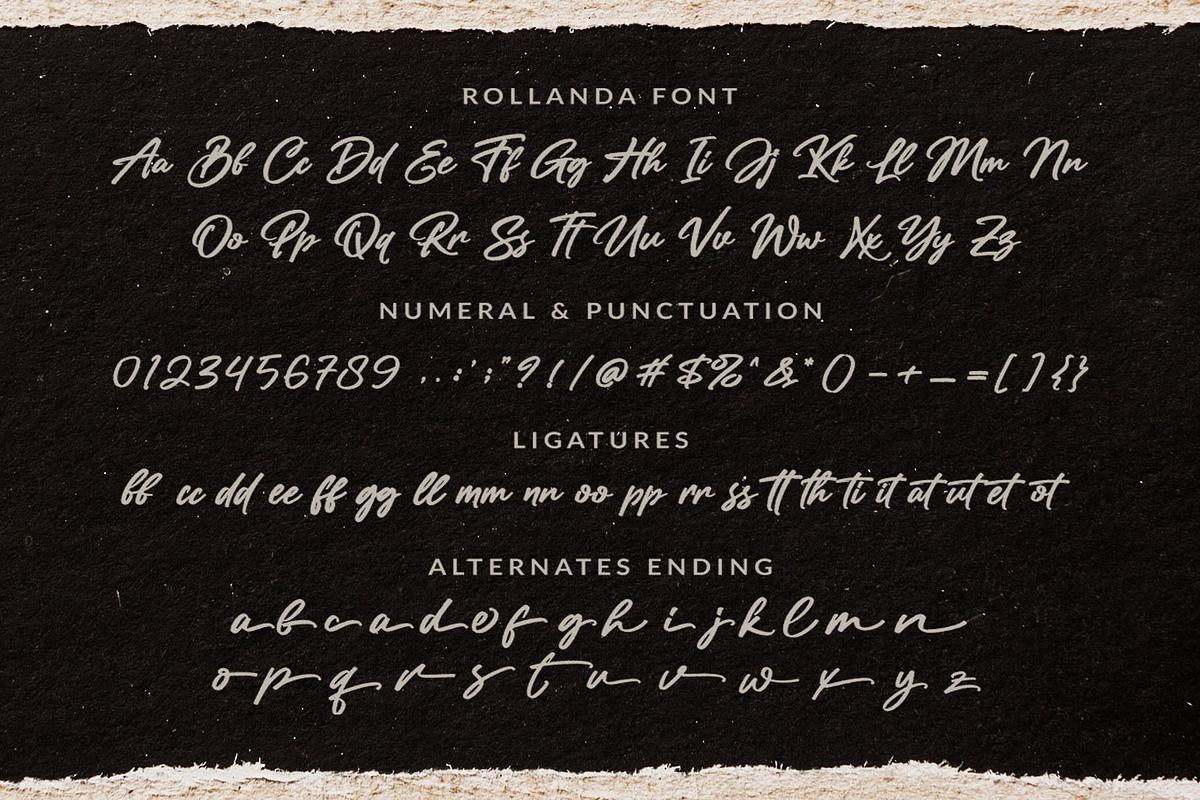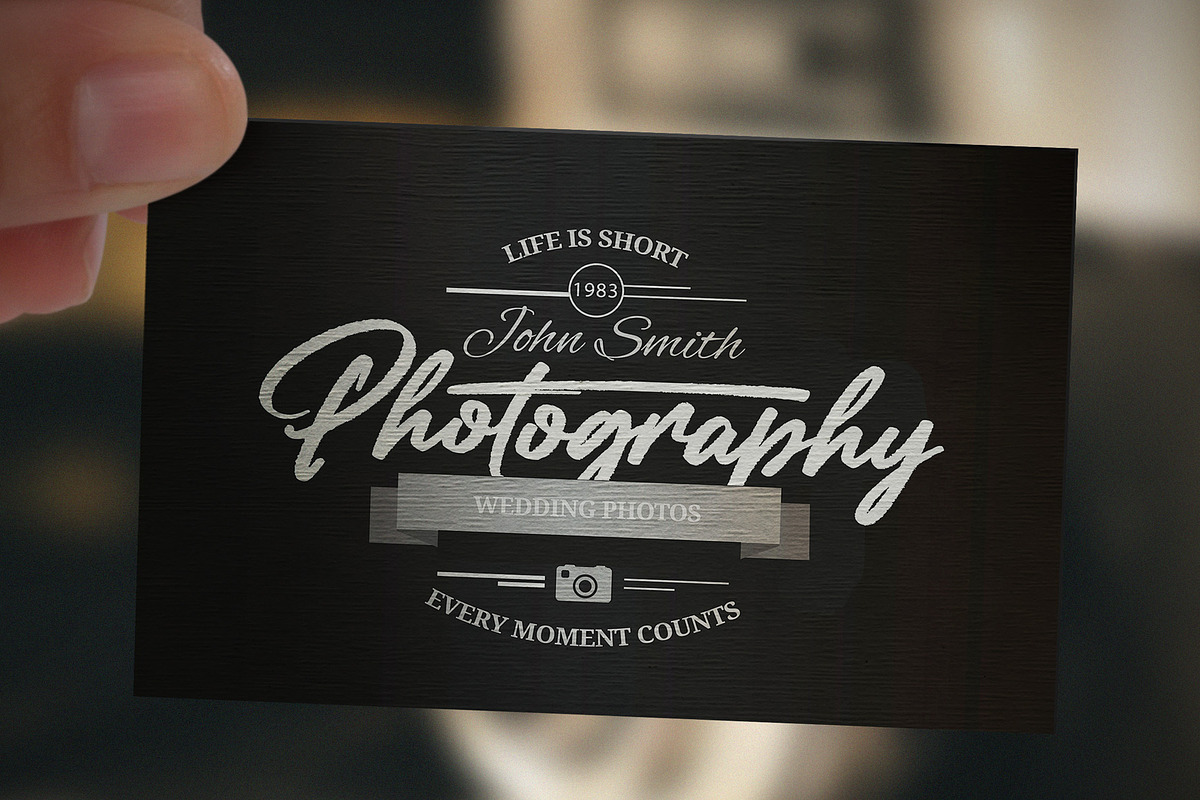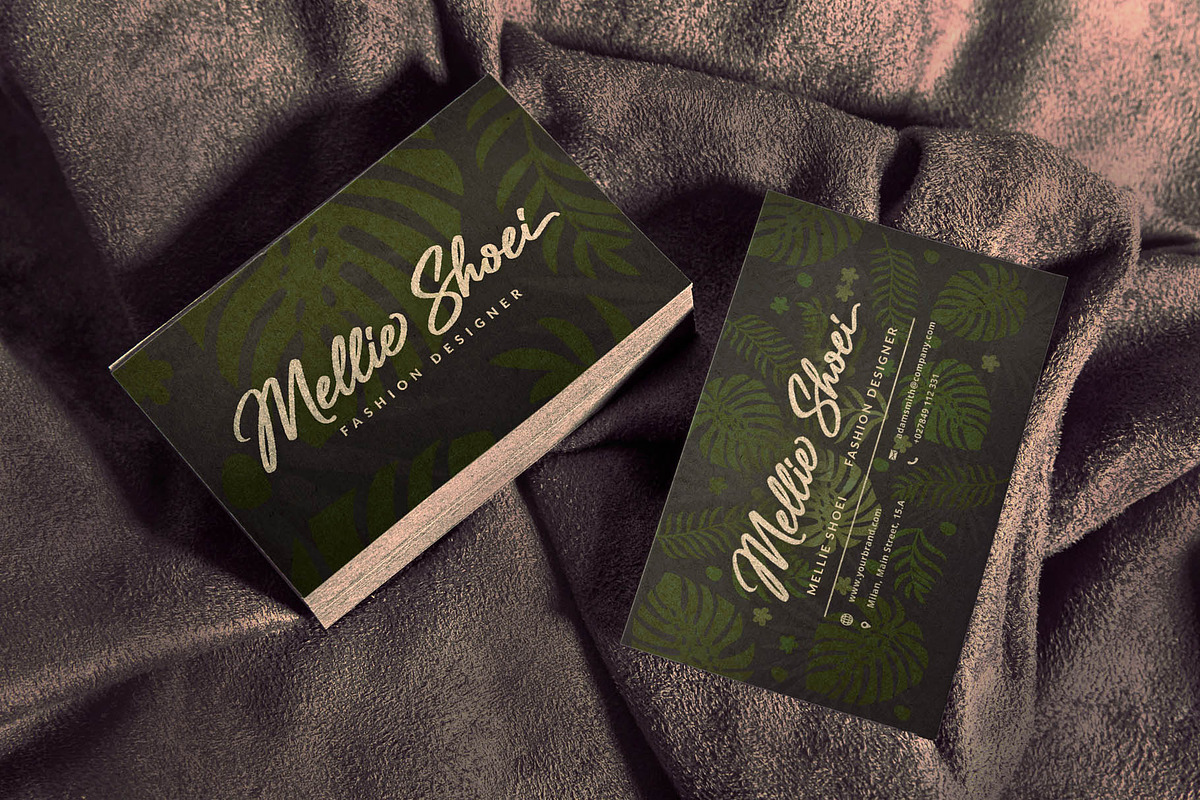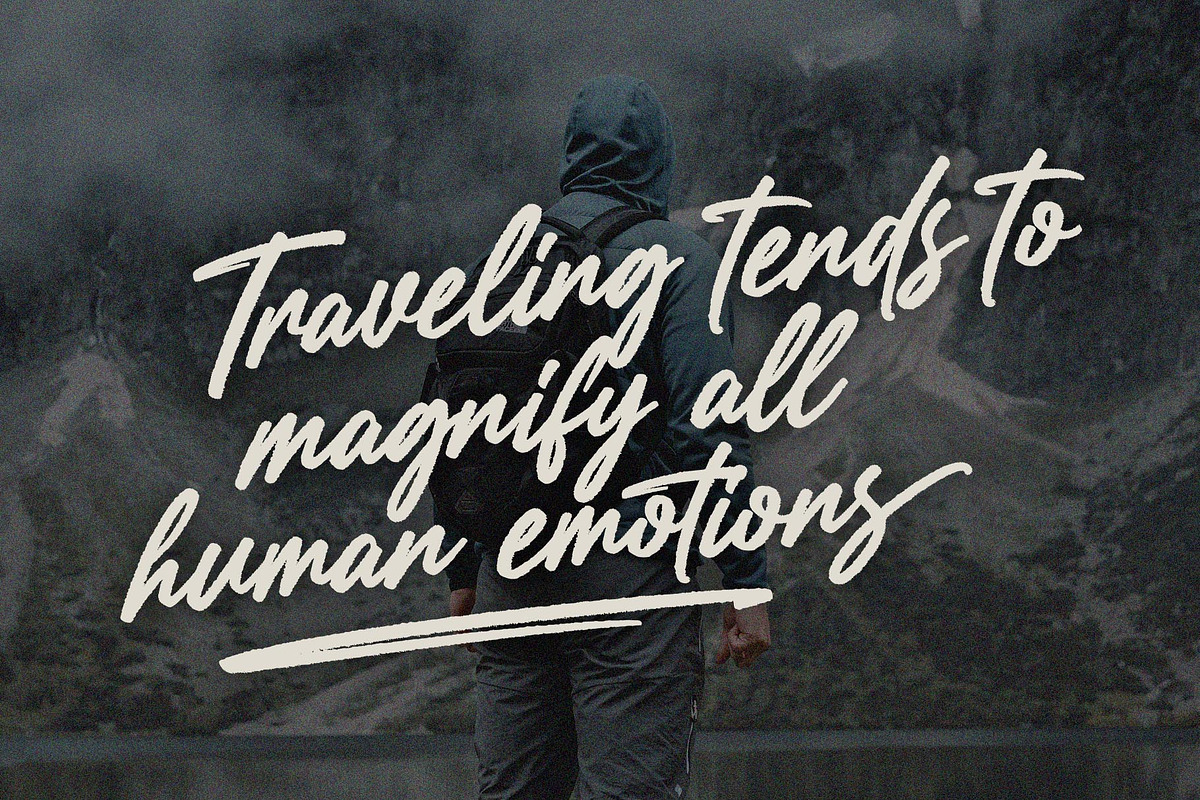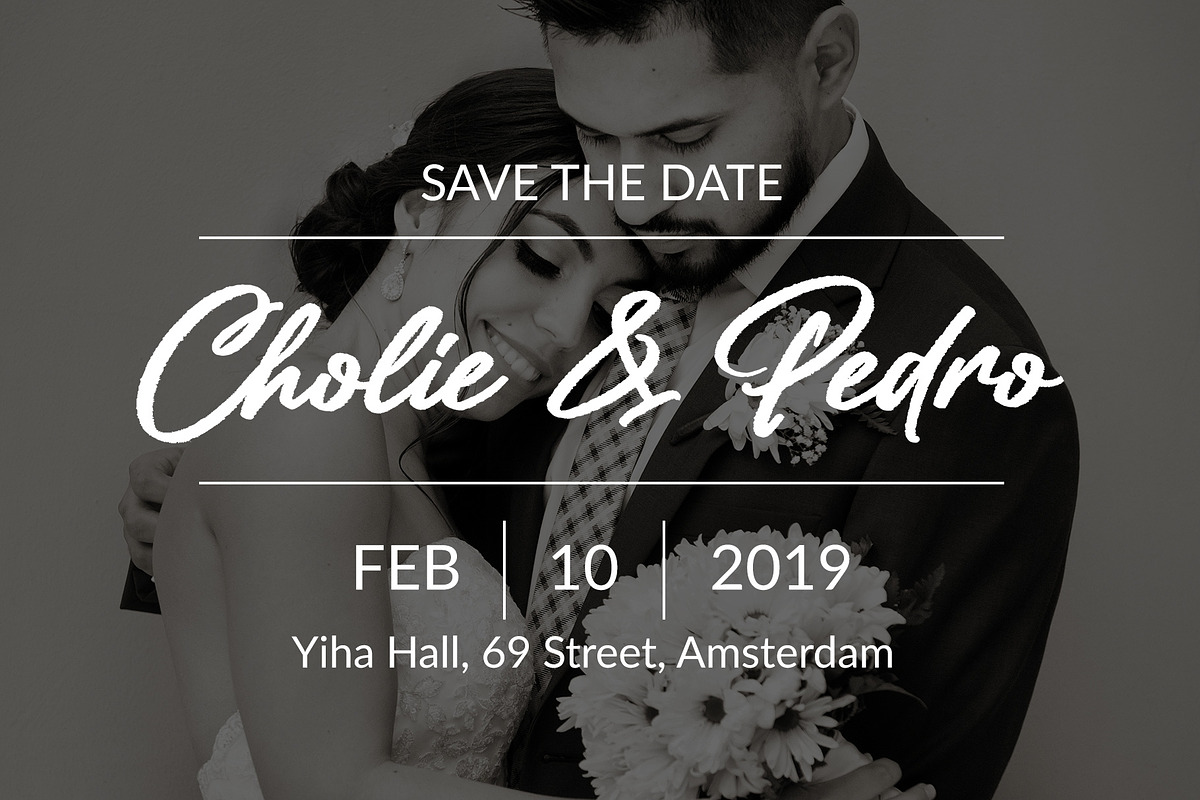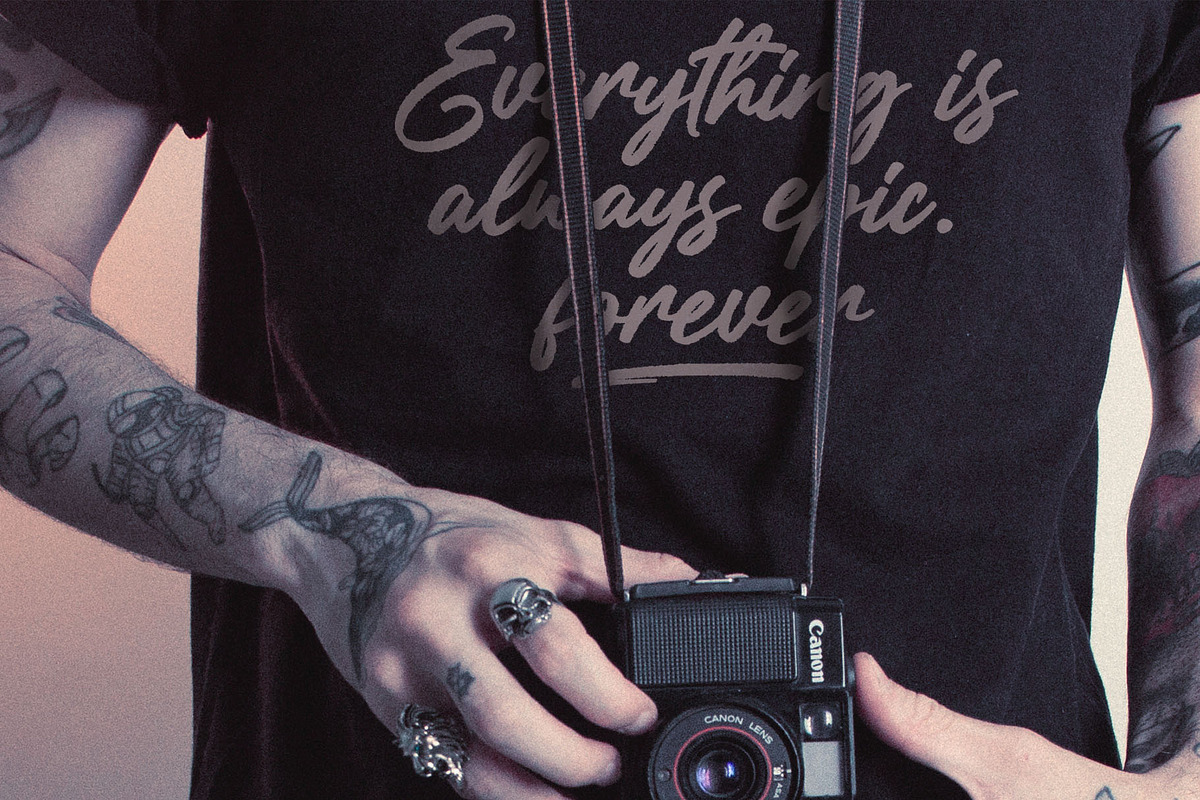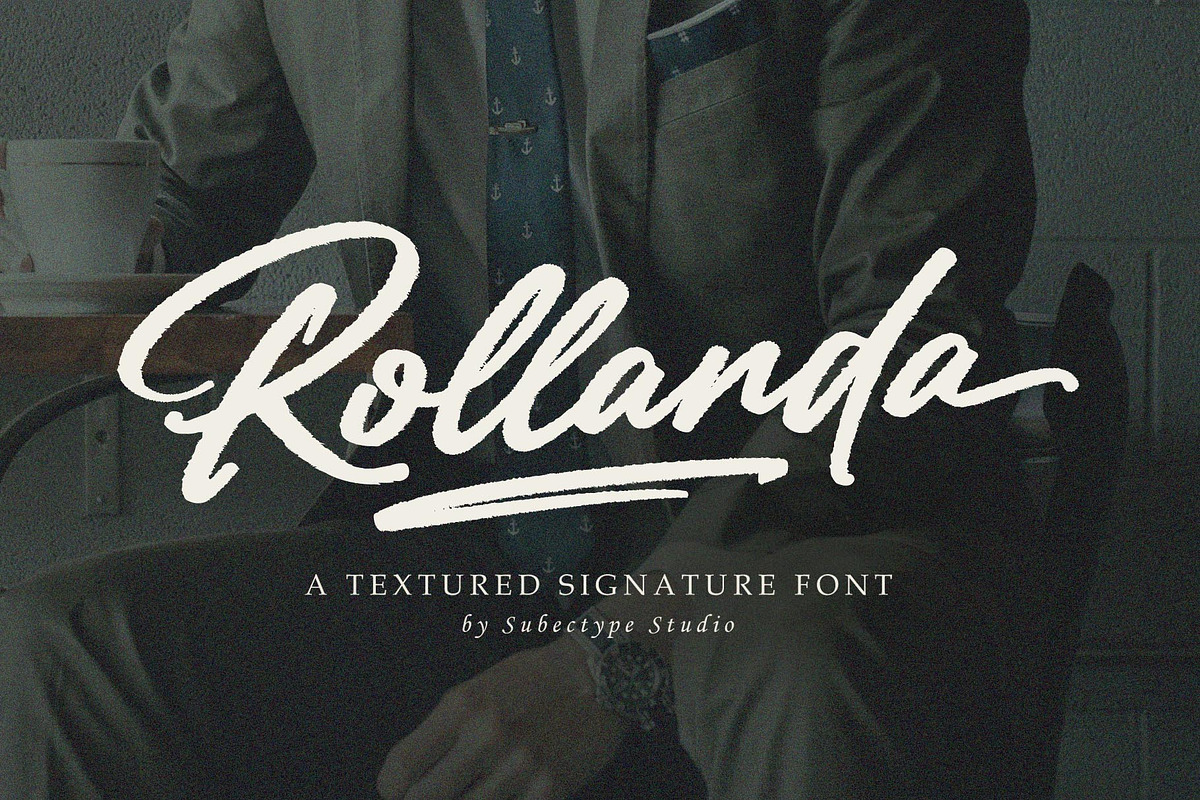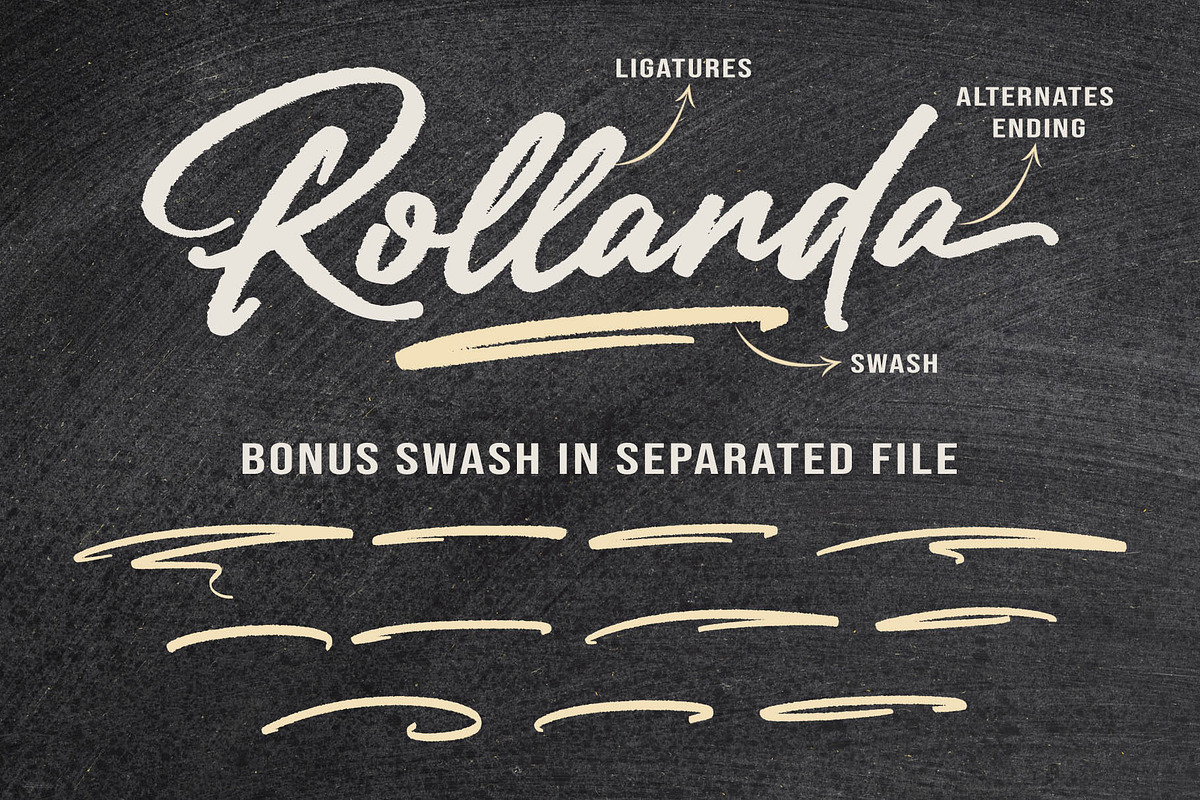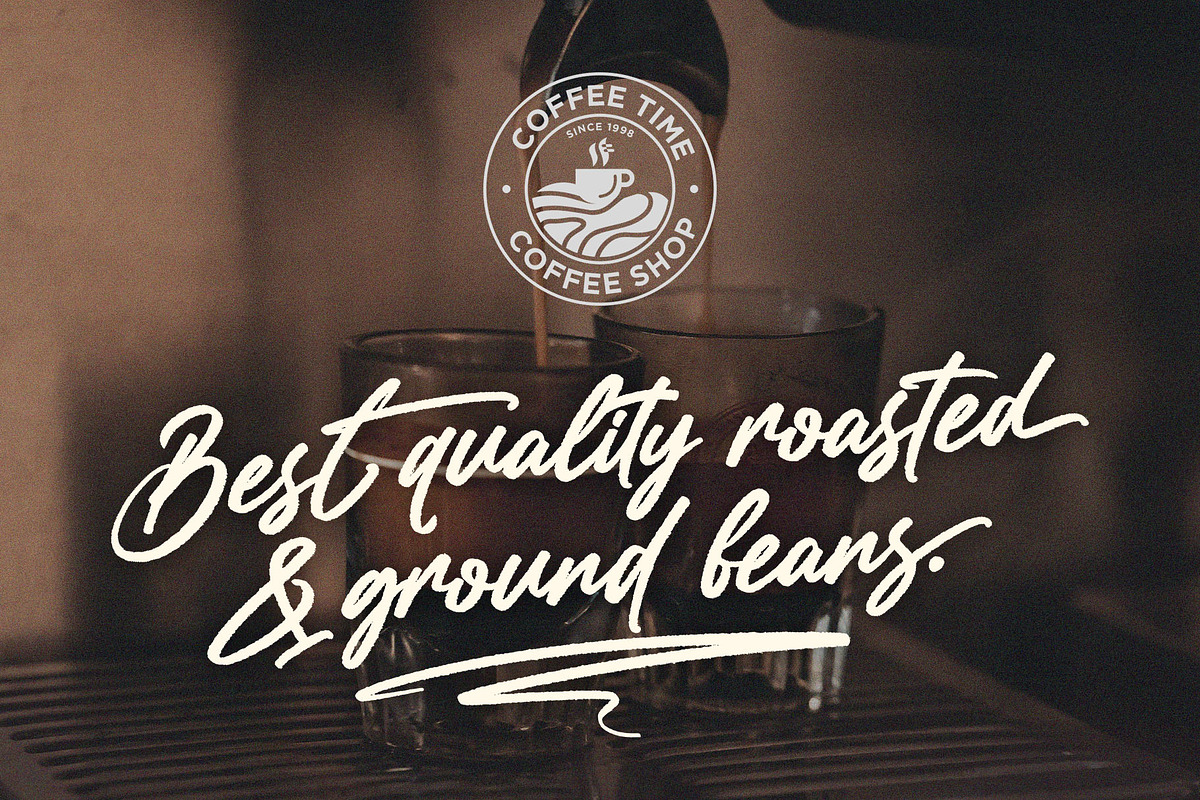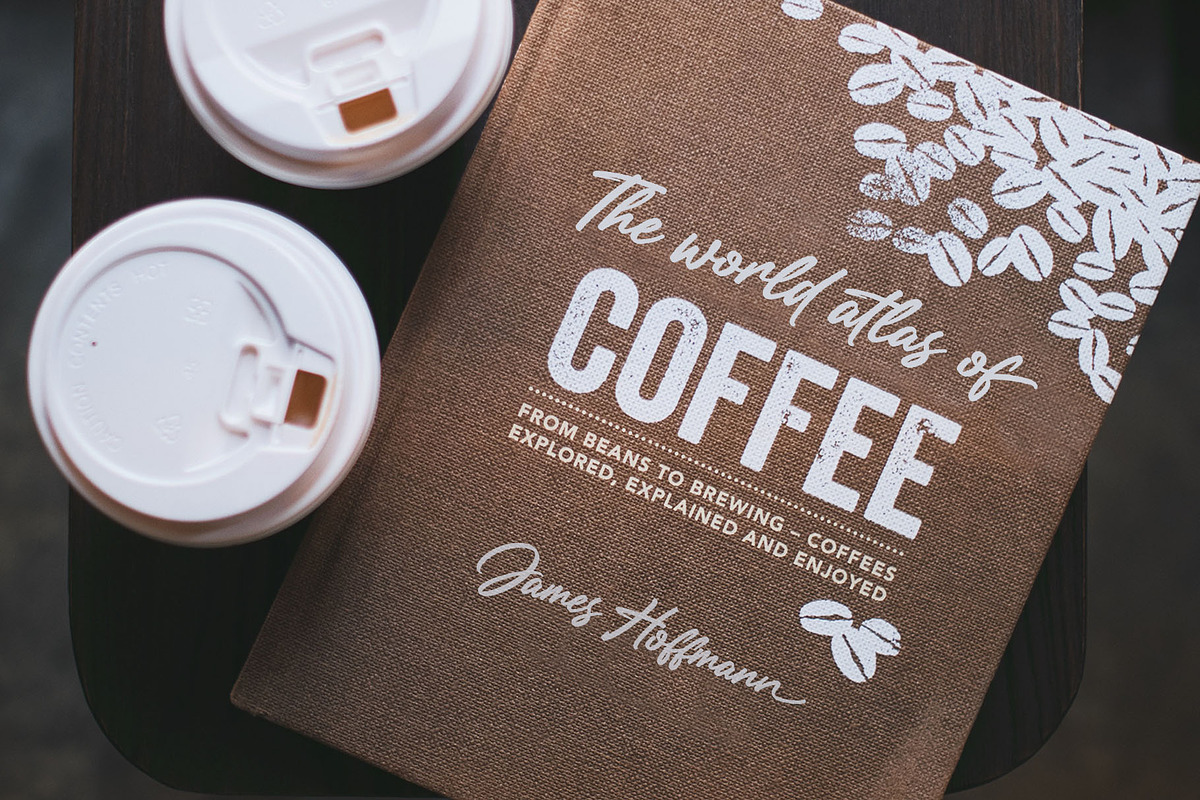
Rollanda Is A textured Signature font. this is stylish signature font with a modern touch. With swift strokes and authentic dry textures, it's an irresistibly charismatic & confident font choice for a range of design projects. Rollanda is perfect for branding projects, homeware designs, product packaging, Signature, Clothing - or simply as a stylish text overlay to any background image.
Ligatures • Are also available for several lowercase characters (double-letters which flow more naturally). These are only accessible via software with opentype capability or a glyphs panel, e.g. Photoshop/Illustrator.